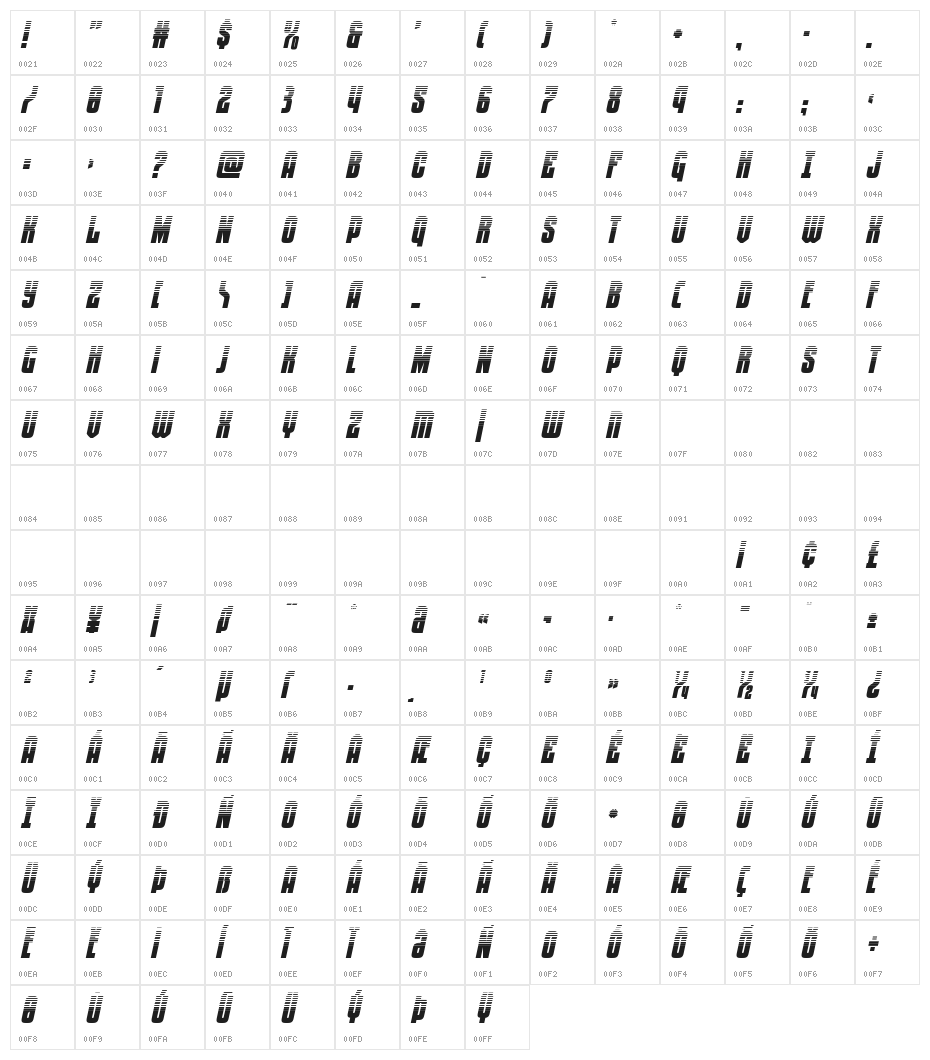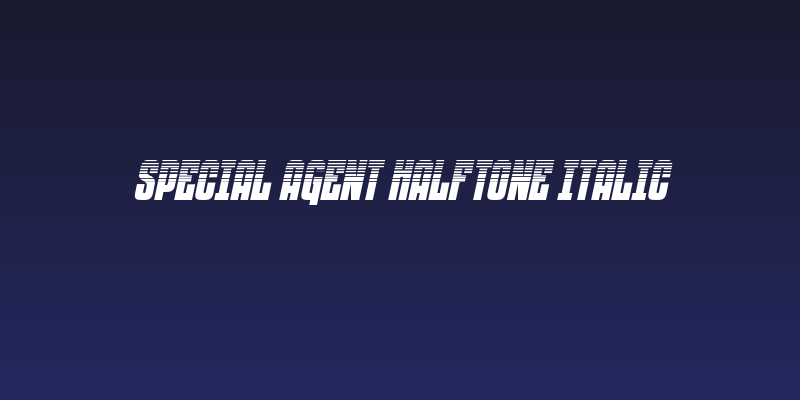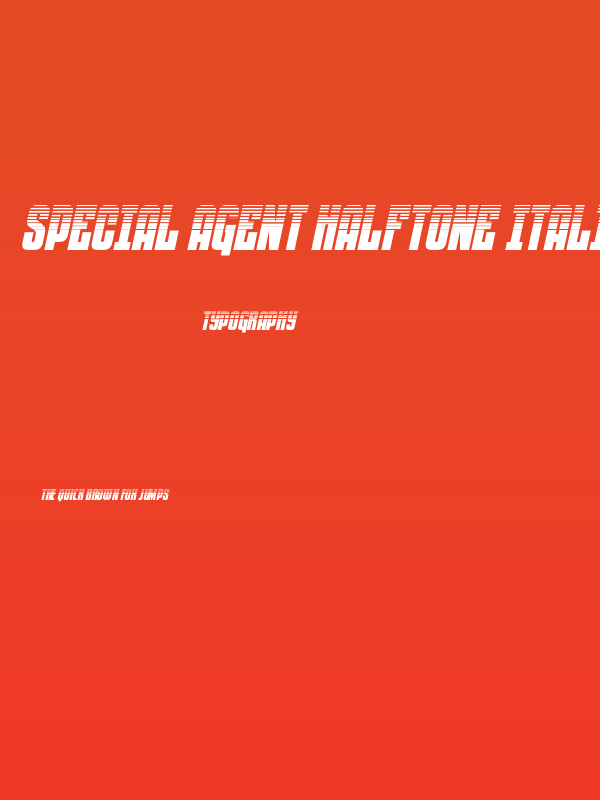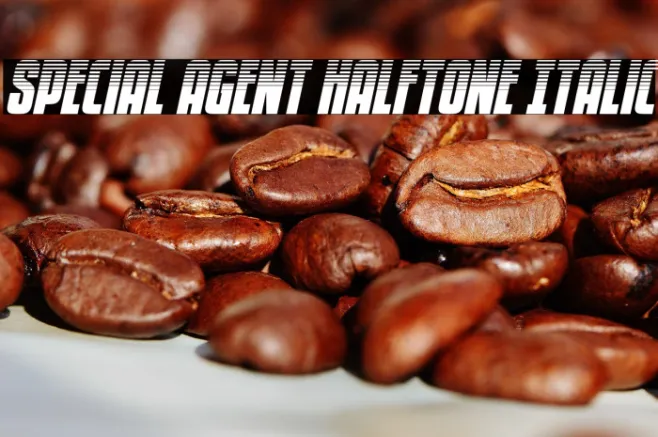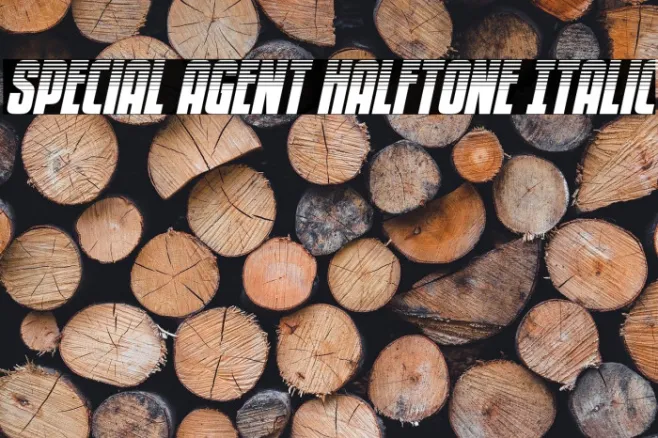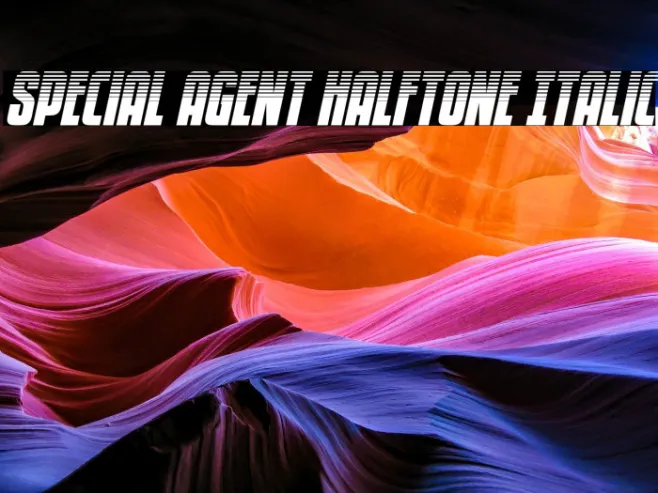
Special Agent Halftone Italic Font
Special Agent Halftone Italic Description
This font features a bold, italicized style with a distinctive halftone effect that creates a sense of movement and dynamism. The uppercase and lowercase letters are designed with a slanted orientation, enhancing the italic nature of the typeface. The characters are bold and wide, with a unique striped pattern that adds a modern and edgy feel. The numbers and special characters maintain the same stylistic elements, ensuring consistency across all glyphs. This font is ideal for projects that require a strong visual impact and a contemporary aesthetic.
| Proposed Projects | Ideal for posters, headlines, branding, and any design requiring a bold, modern look. |